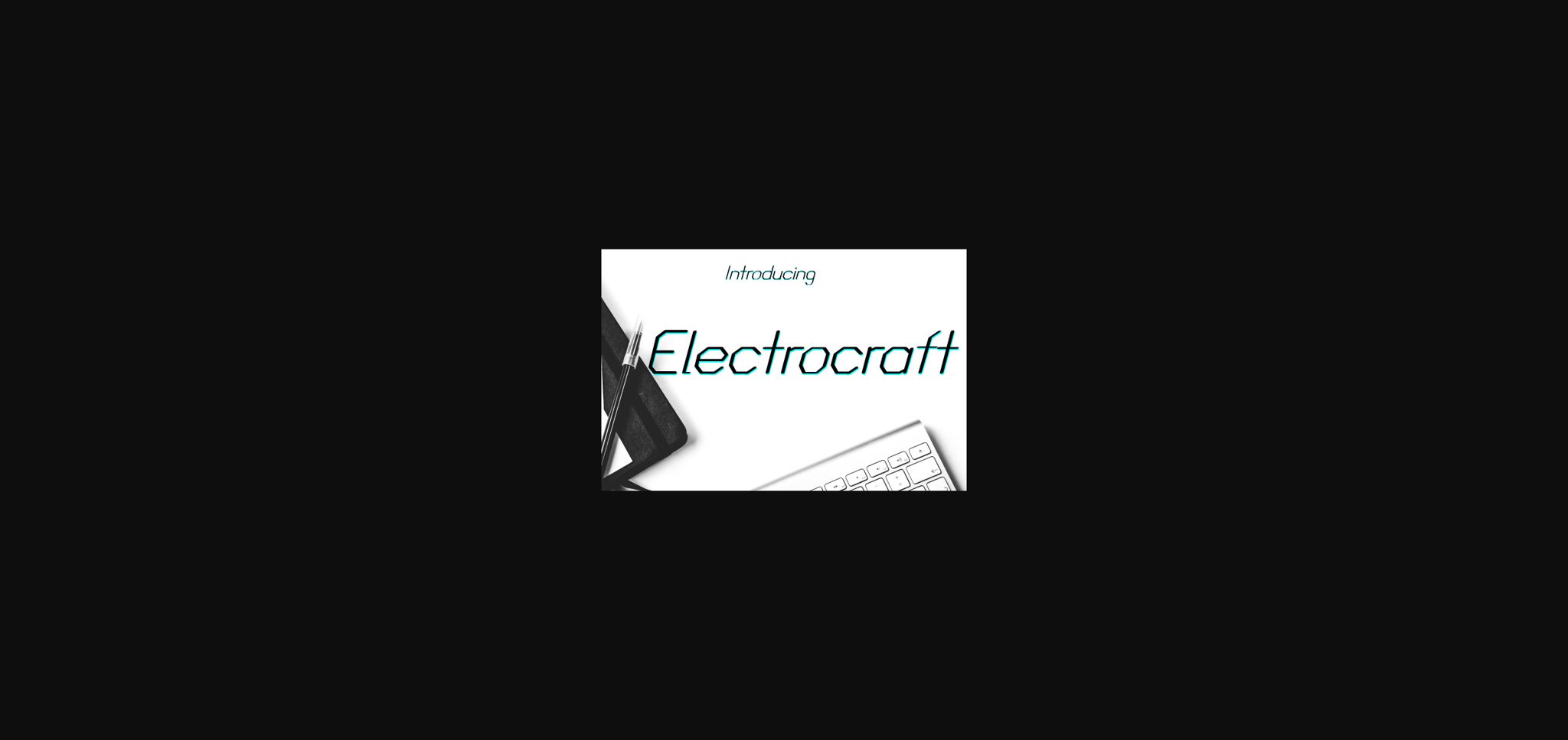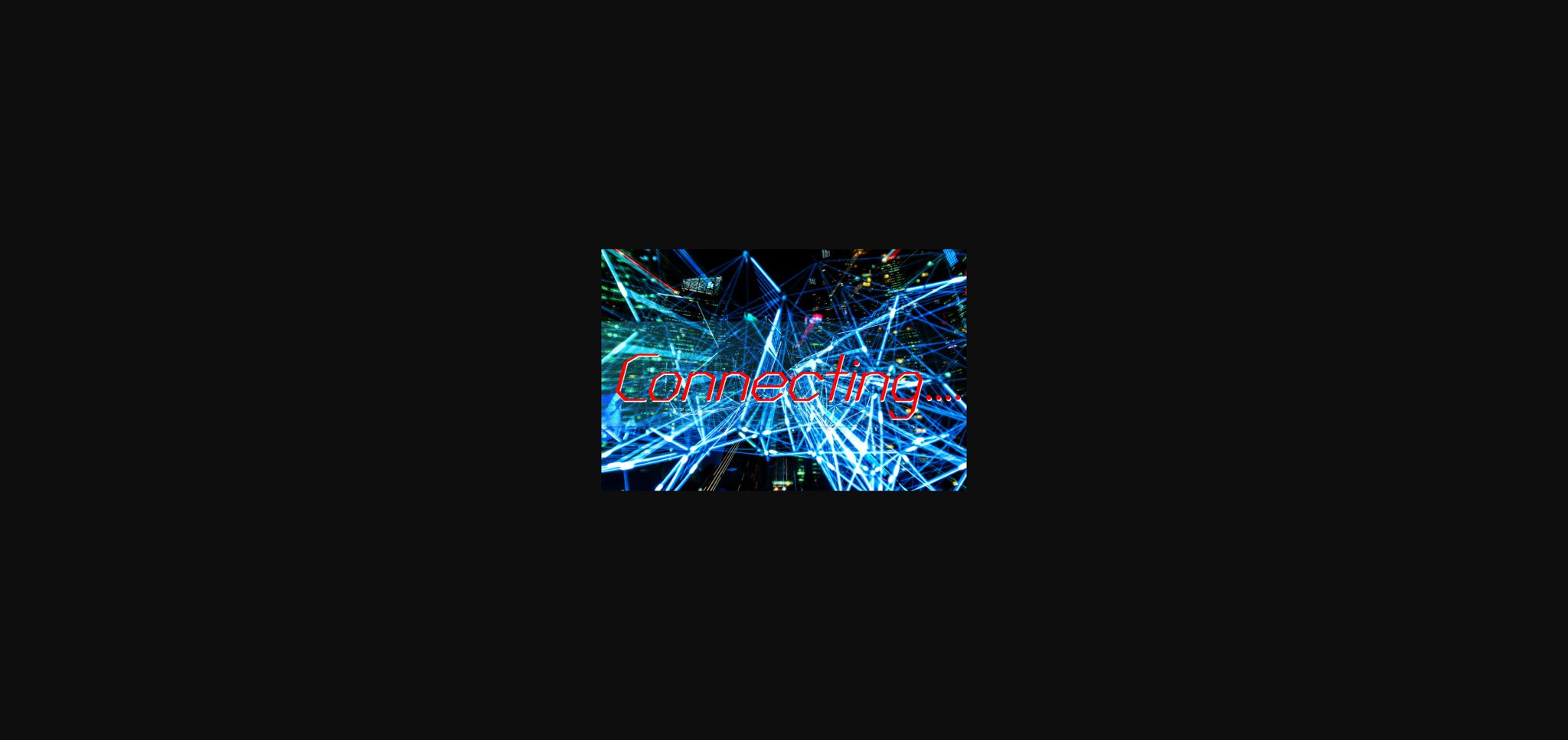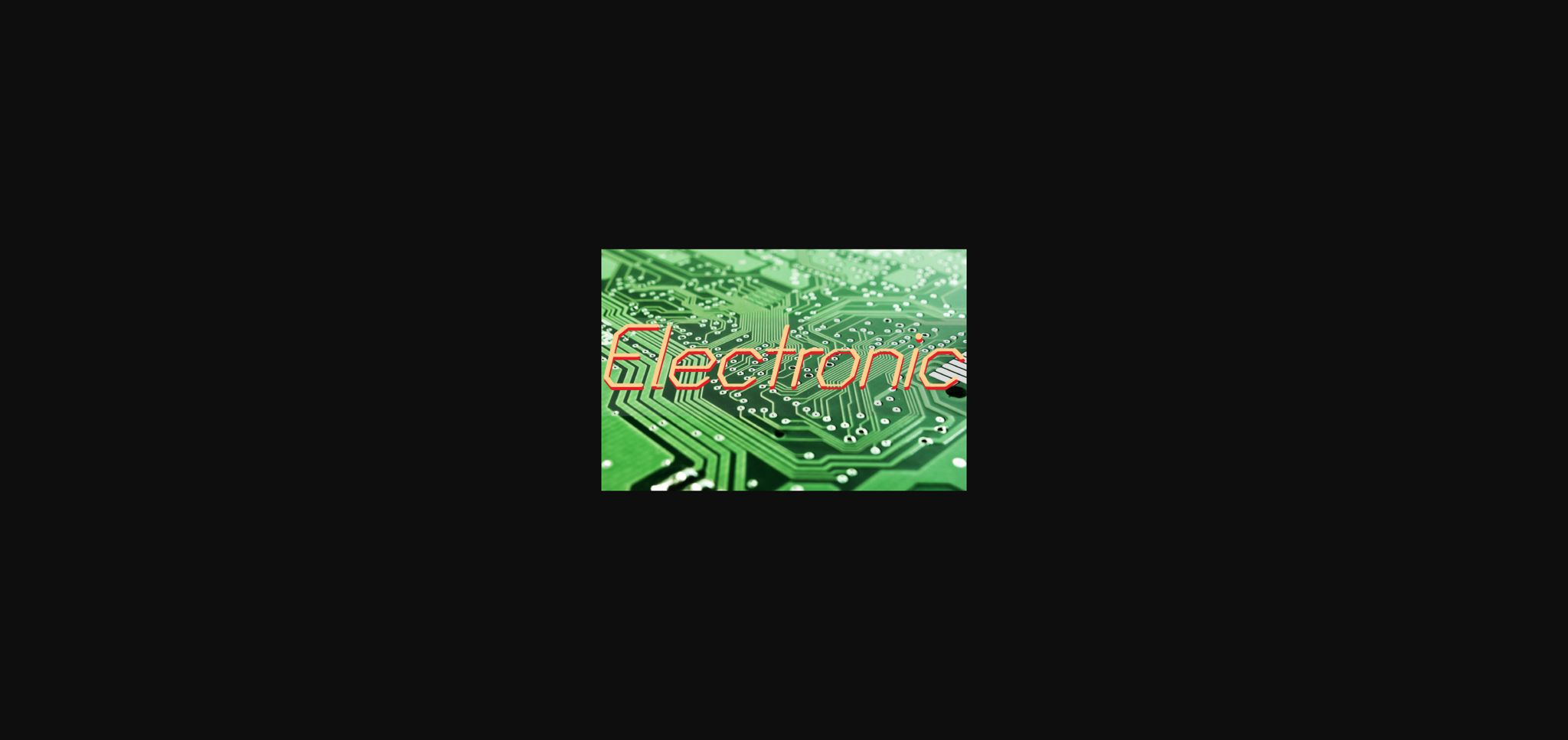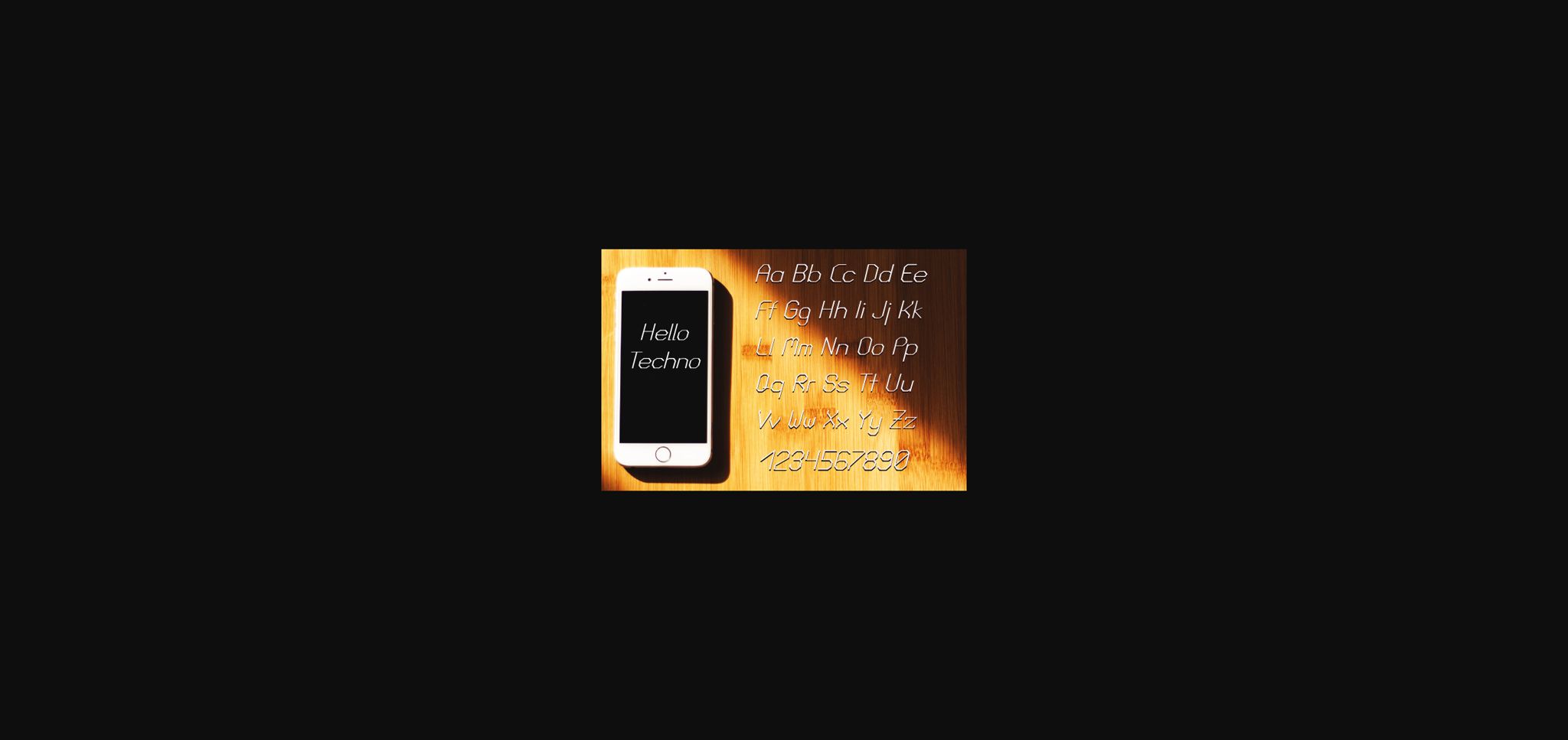
HomeSans Serif FontsTechnocraft Font Sans Serif Fonts Technocraft Font FacebookXPinterestWhatsApp 1 of 6 ... Technocraft Font Poster 2... Technocraft Font Poster 3... Technocraft Font Poster 4... Technocraft Font Poster 5... Technocraft Font Poster 6... About Technocraft Font Technocraft is a stylish and modern sans serif font. It is suitable for any branding, product packaging, invitation, quote, t-shirt, label, poster, logo that you wish to develop. DOWNLOAD NOW People also explored Mythical Prince Font Search Party Ancestry Font Geky Xin Font Itadakimase Duo Font Abaistey Font Bankstory Font Aromatic Font Andiana Font 454 0 TagsTechnocraft Font Previous articleAstro FontNext articleIltholen Font LEAVE A REPLY Cancel reply Comment: Please enter your comment! Name:* Please enter your name here Email:* You have entered an incorrect email address! Please enter your email address here Website: Save my name, email, and website in this browser for the next time I comment. Personal Use Free Fillguy Font Personal Use Free Read more about this font Colourbars Personal Use Free Read more about this font Talking on Personal Use Free Read more about this font Special Day Personal Use Free Read more about this font BLOG Fonts That Capture the Spirit of New York City New York City is more than just a place—it’s an experience, a rhythm, a visual language... Exploring Font Trends How to Cut Any Font on Cricut: Convert a Font to SVG (Free) 5 Fonts That Will Dominate Design Trends in 2026